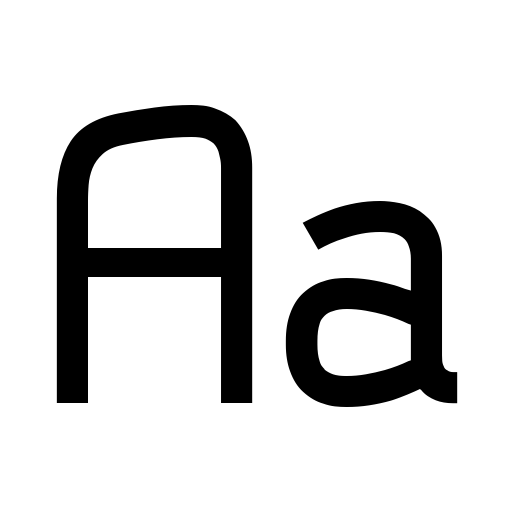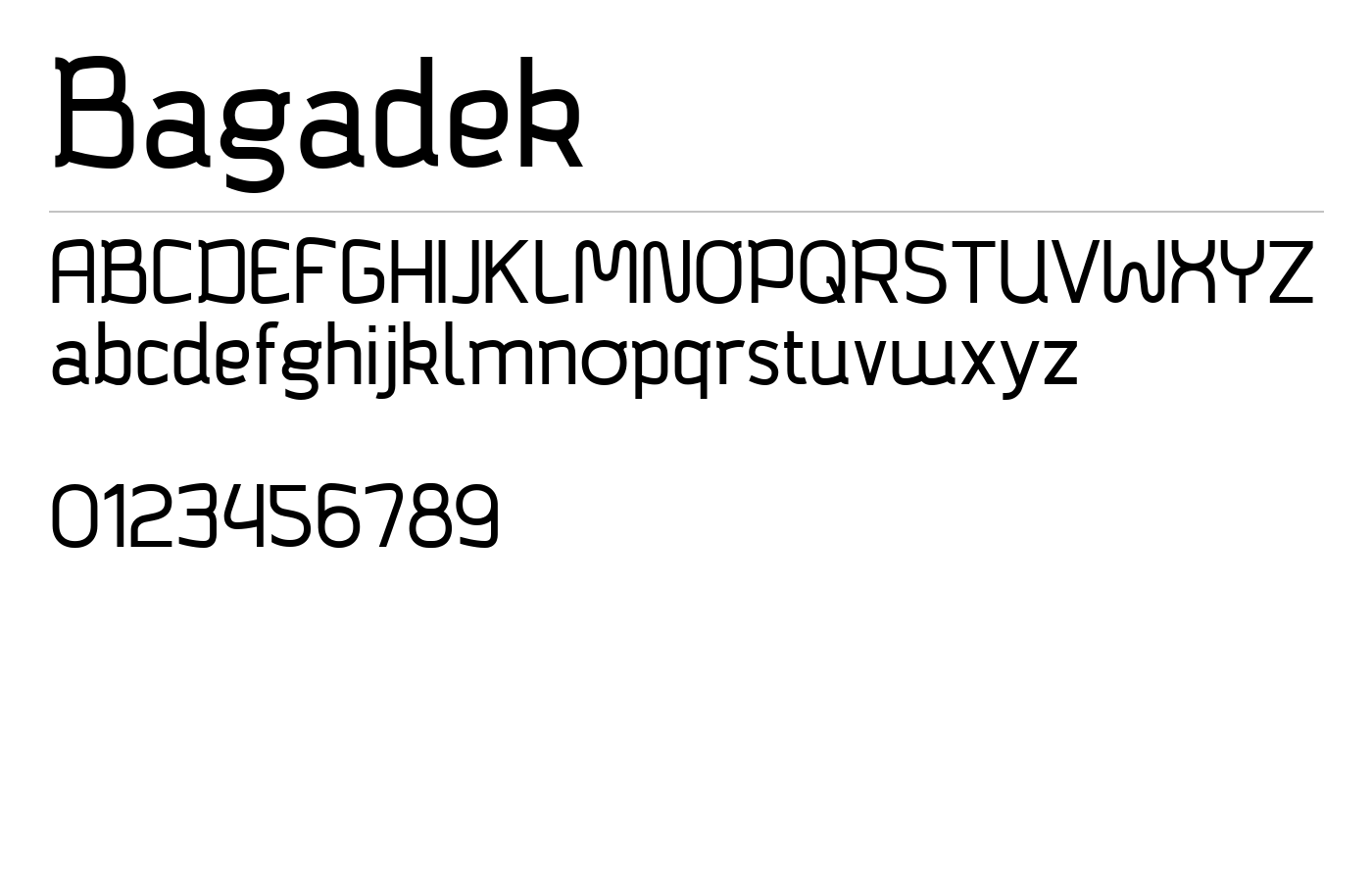
Bagadek is a unique sans serif font with a slightly condensed structure and medium stroke contrast, featuring soft, rounded terminals and subtle geometric influences. Its friendly and modern appearance, combined with a clean yet quirky character design, makes it ideal for creative branding, headlines, and editorial projects seeking a fresh, approachable feel. This font works well where clarity and personality are equally important, such as logos, posters, and contemporary web design.
Bagadek Font
About Bagadek Font